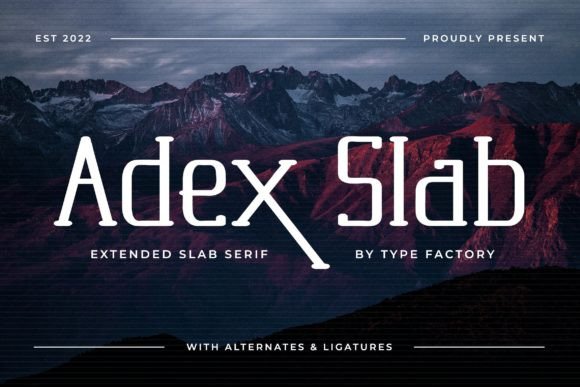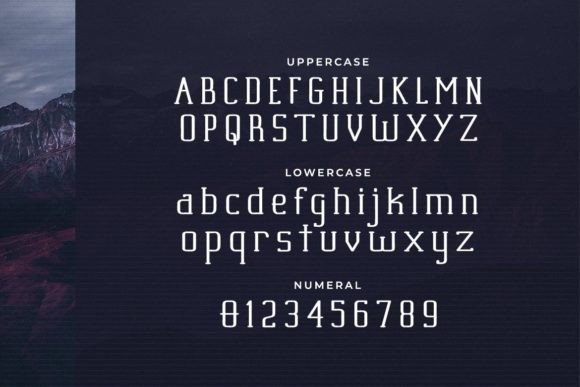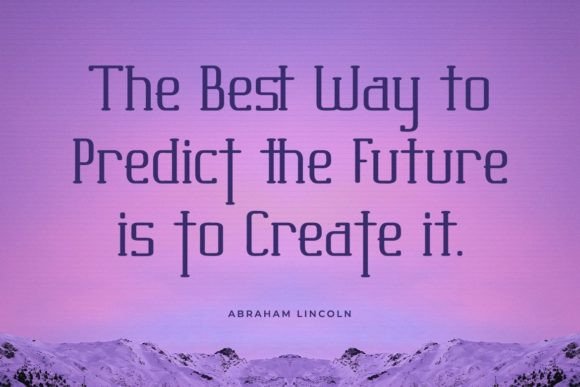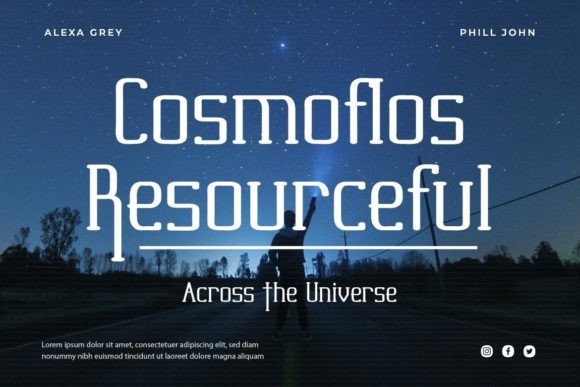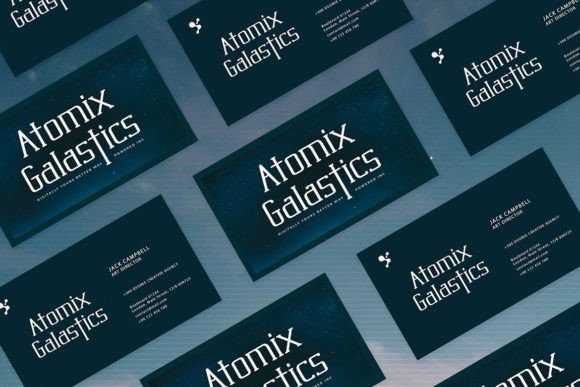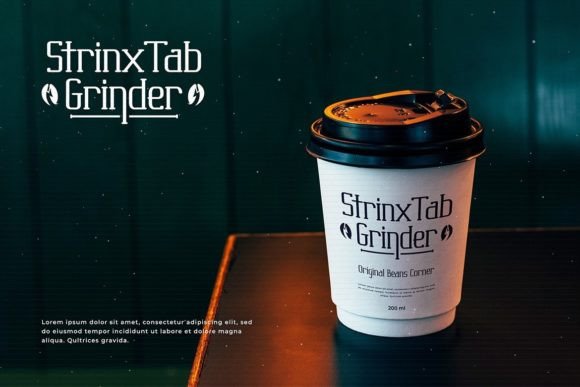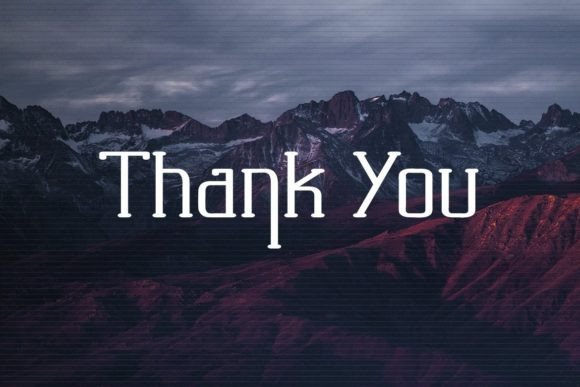
Adex Slab
Adex Slab: An Extended Slab Serif Font
Adex Slab is an extended slab serif font that stands out with its elegant and beautiful arrangement of letters. This versatile typeface looks outstanding in both formal and non-formal designs, making it perfect for headlines, logos, jackets, posters, futuristic themes, and more. Adex Slab finds its inspiration in the style of modern typefaces, combining extended slab serifs with an elegant appearance.
Key Features of Adex Slab
• Extended Design: Offers a wide and spacious look suitable for various applications.
• Slab Serif Structure: Features distinctive serifs that add character and style.
• Elegant Appearance: Brings a touch of sophistication to designs.
• Versatile Application: Ideal for both formal and non-formal projects.
Ideal Uses for Adex Slab
Adex Slab’s unique characteristics make it particularly well-suited for:
When incorporating Adex Slab into your designs, consider these tips:
• Use for headlines or short blocks of text to showcase its extended style.
• Experiment with different sizes to highlight the font’s elegant features.
• Utilize its versatility in both formal and non-formal contexts.
Adex Slab is an excellent choice for designers looking to add an extended and elegant slab serif font to their typographic toolkit. Its ability to enhance various design projects with a touch of sophistication makes it stand out in the world of typography. Whether you’re working on formal corporate materials or more creative, futuristic designs, Adex Slab offers the perfect blend of style and functionality.
Furthermore, Adex Slab’s unique design allows it to shine in various contexts. From modern, minimalist layouts to more elaborate designs that need a touch of elegance, this font can elevate your projects. Its extended yet readable appearance works particularly well in designs that require a thoughtful and engaging mood.
In conclusion, Adex Slab is a font that truly captures the essence of modern elegance in typography. Its ability to work well in both formal and non-formal projects showcases its versatility. For those looking to add a touch of sophisticated charm to their work, Adex Slab can enhance themed creations with its distinctive style. It’s the perfect choice for designers seeking to make a strong, stylish impact across a wide range of creative projects.